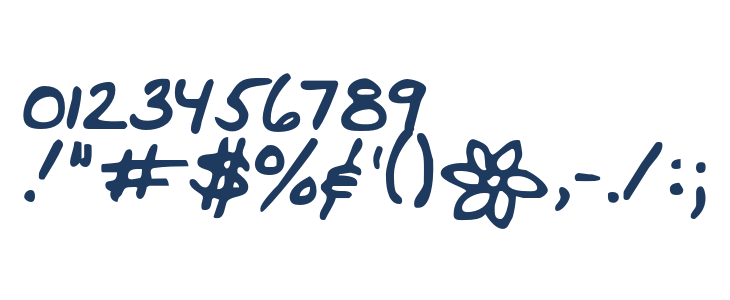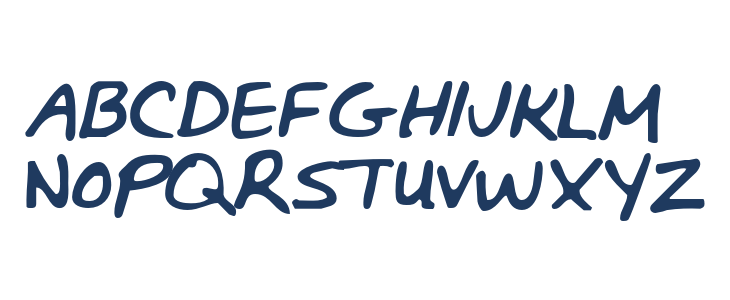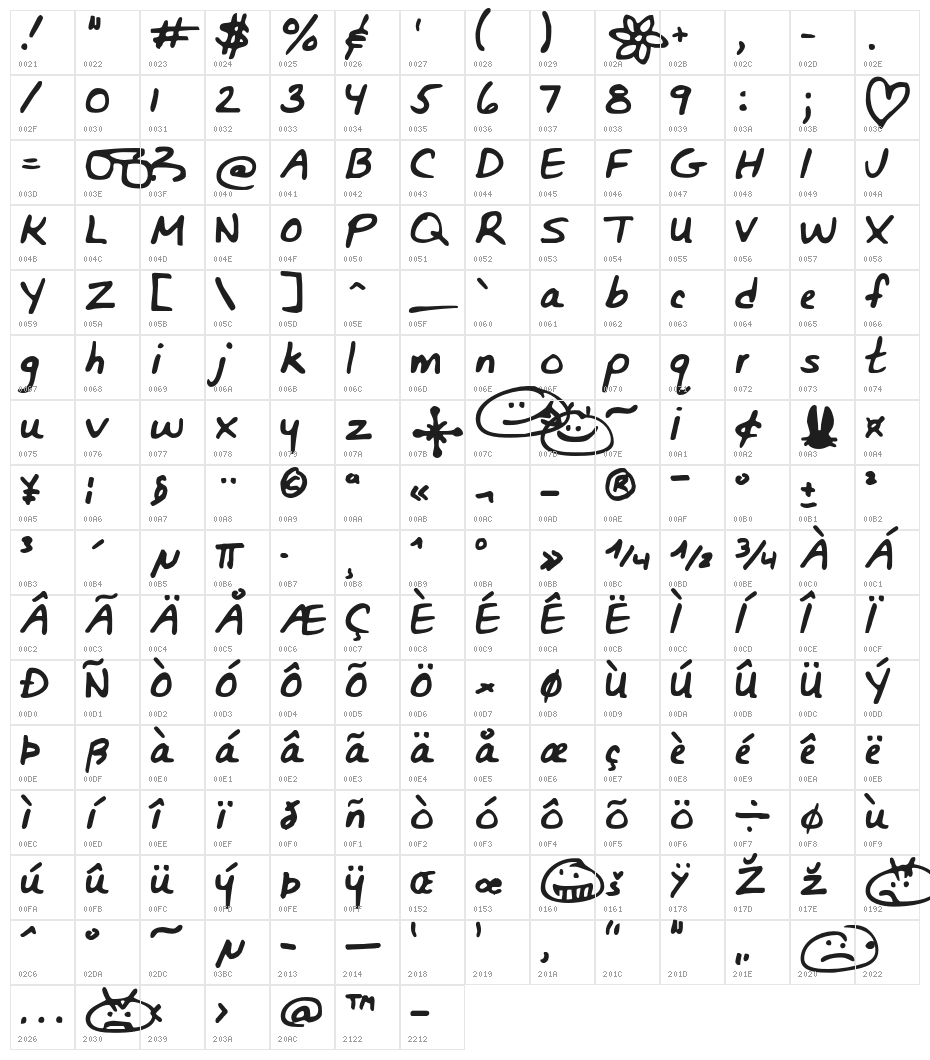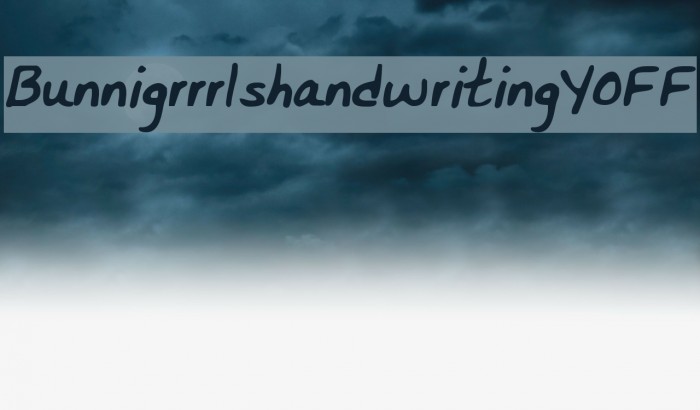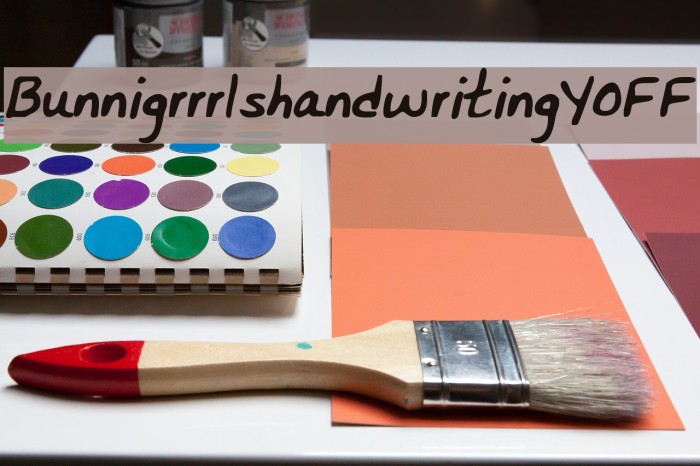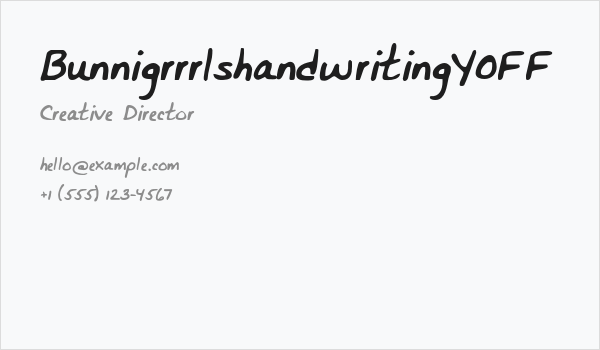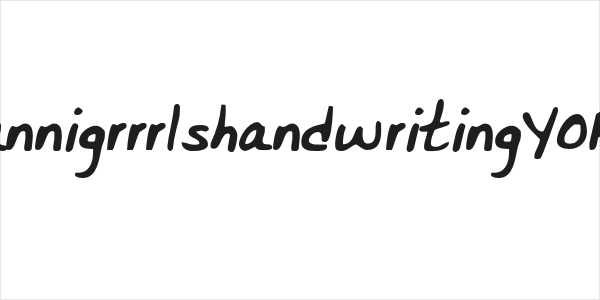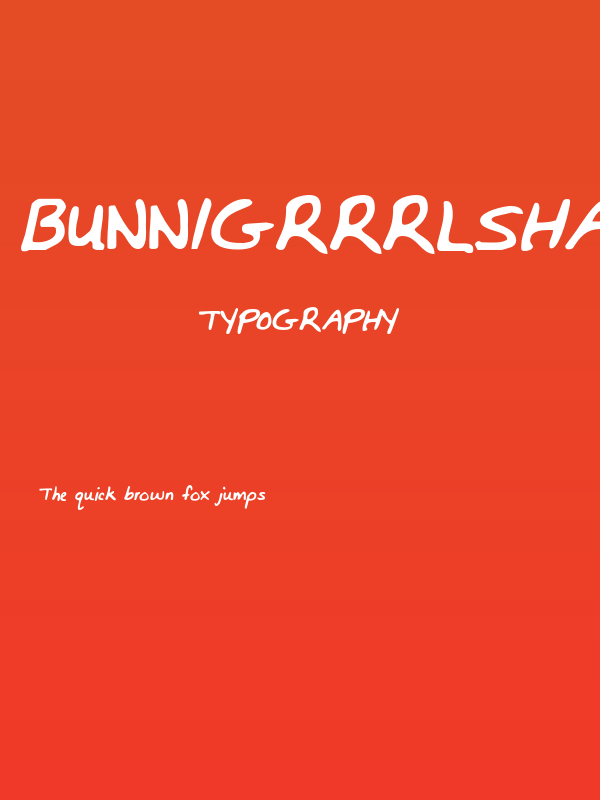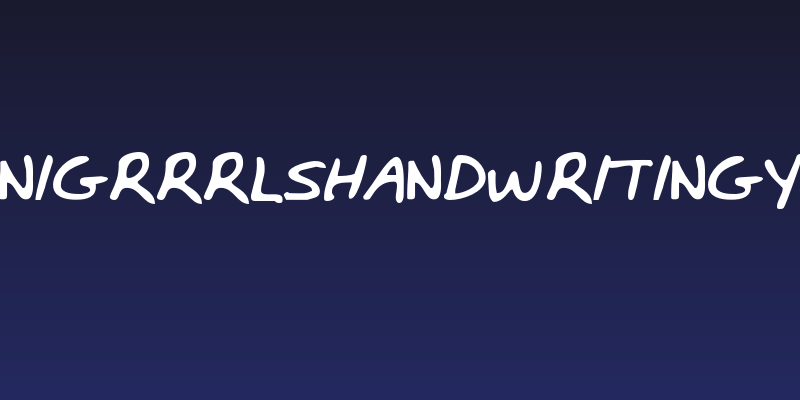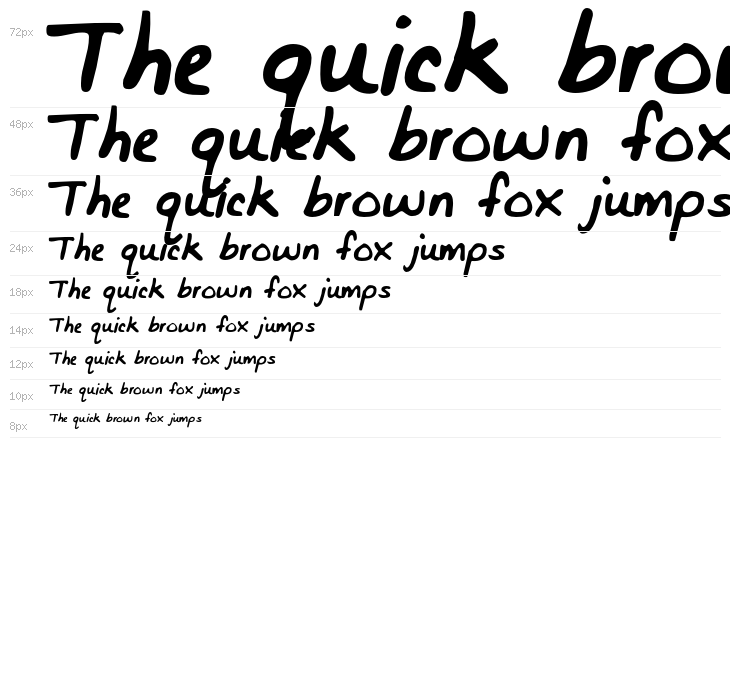
BunnigrrrlshandwritingYOFF Font
BunnigrrrlshandwritingYOFF Description
This font exudes a playful and casual vibe, reminiscent of handwritten notes with a touch of whimsy. The characters are bold and rounded, giving them a friendly and approachable appearance. The strokes are consistent in thickness, providing a uniform look across all characters. The uppercase letters are slightly larger than the lowercase, maintaining a balanced proportion. The numerals and special characters are designed to match the overall style, ensuring cohesion throughout. This font is perfect for projects that require a personal touch, such as greeting cards, invitations, or playful branding.
| Proposed Projects | Ideal for greeting cards, invitations, playful branding, and children's books. |